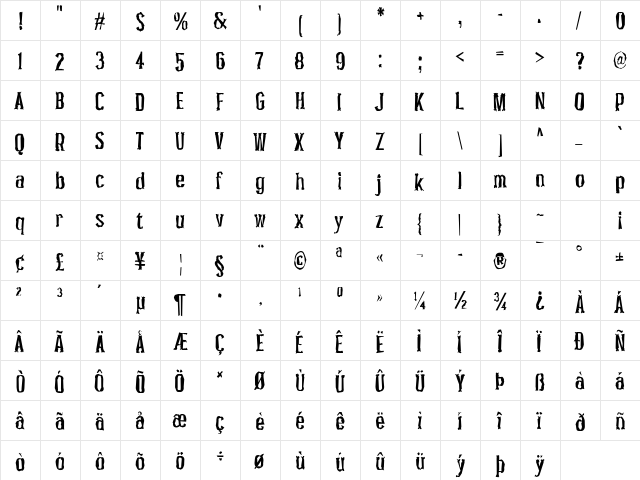
Pocus Primera Distorted Regular
| Designer | Wahyu S. Adi Wibowo |
Design Context for Pocus Primera Distorted Typeface
Pocus Primera Distorted is a composed and adaptable typeface that performs quietly and consistently across a wide range of design contexts.